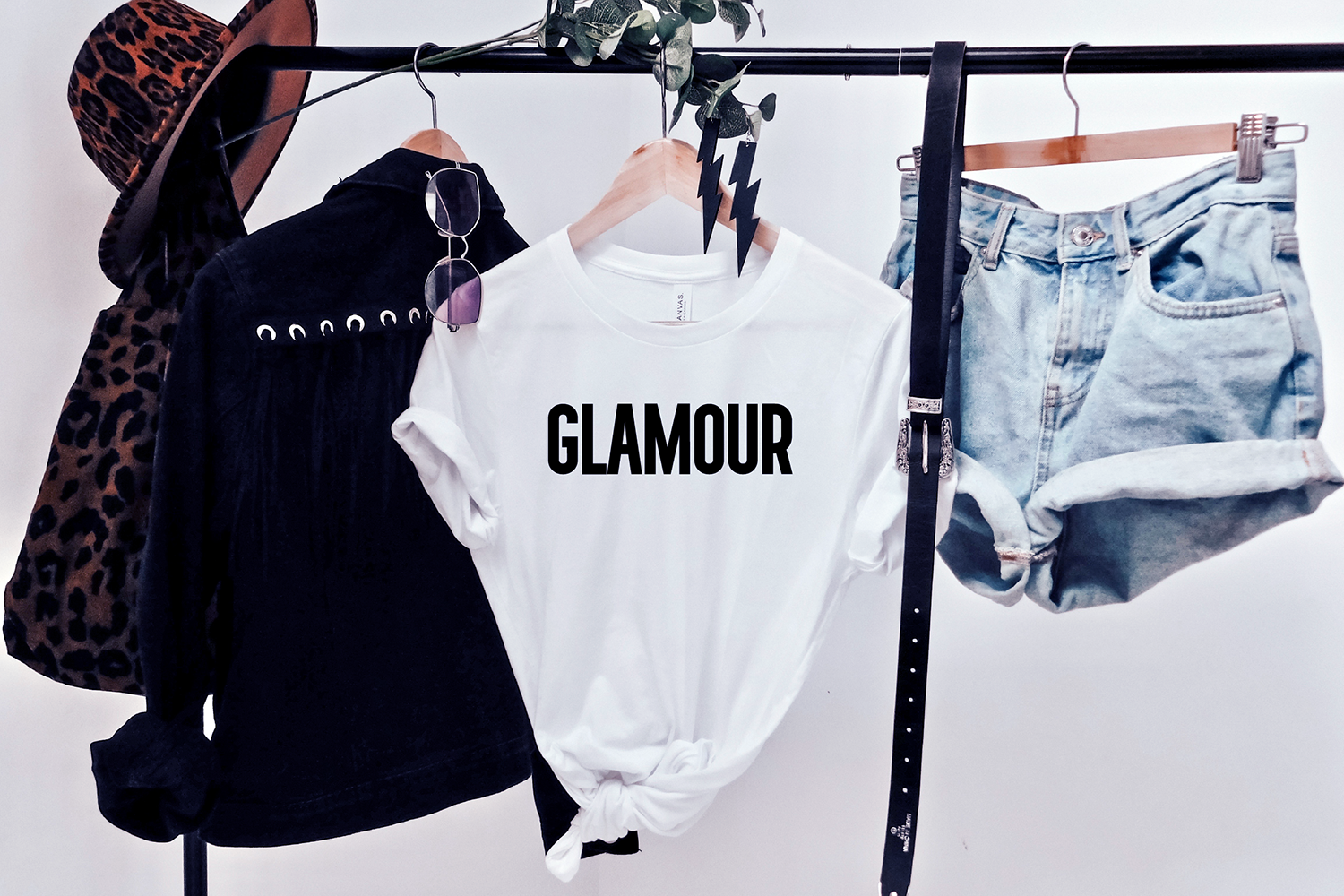
"Fourth Avenue" a modern stylish sans fashion font.
Multilingual support.
This font is a tall classic sans display font that is perfect for wedding or crafty projects. Use it for branding, crafts for decor, invitations, and more! All caps glyphs, numbers, punctuation marks, and intl characters.